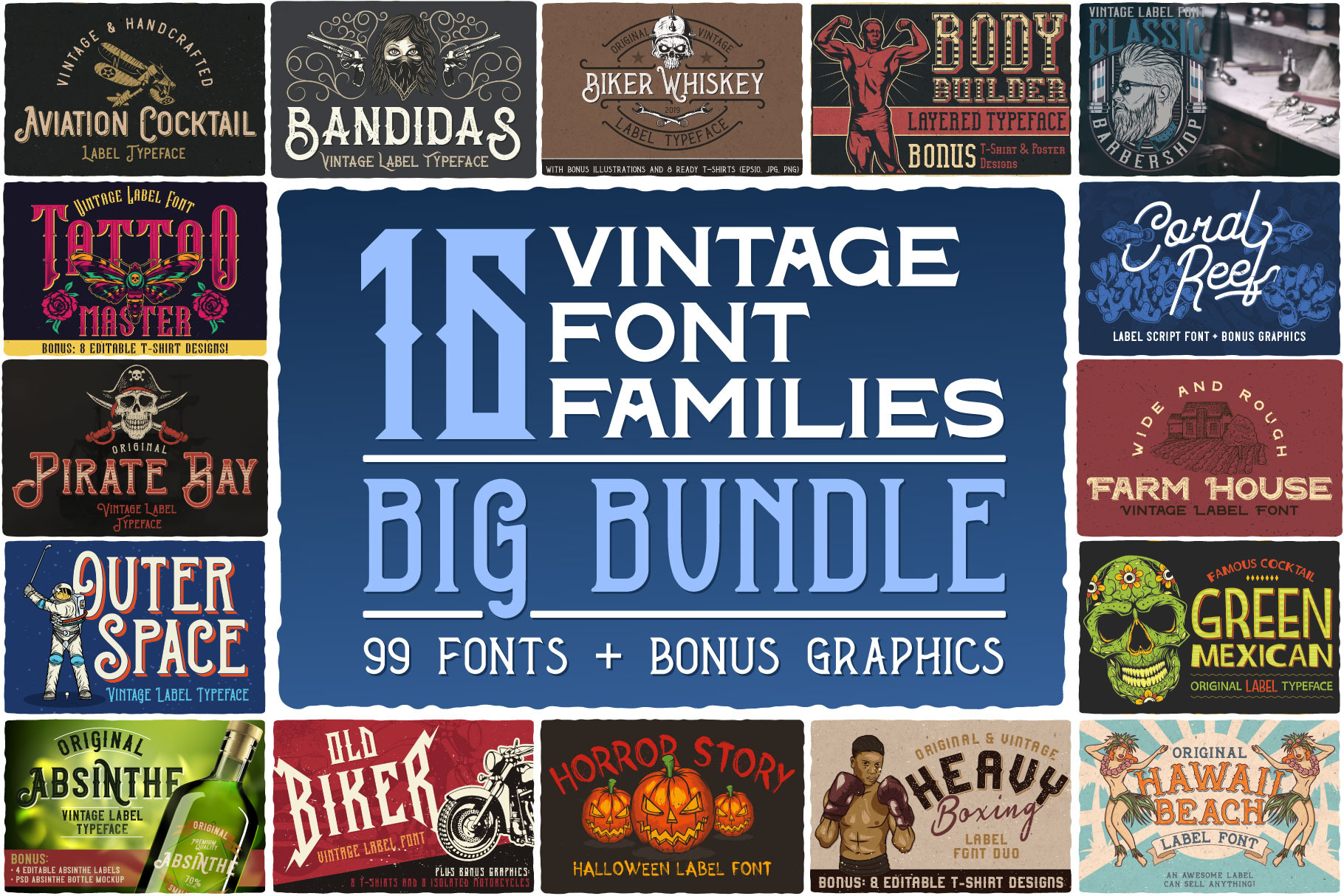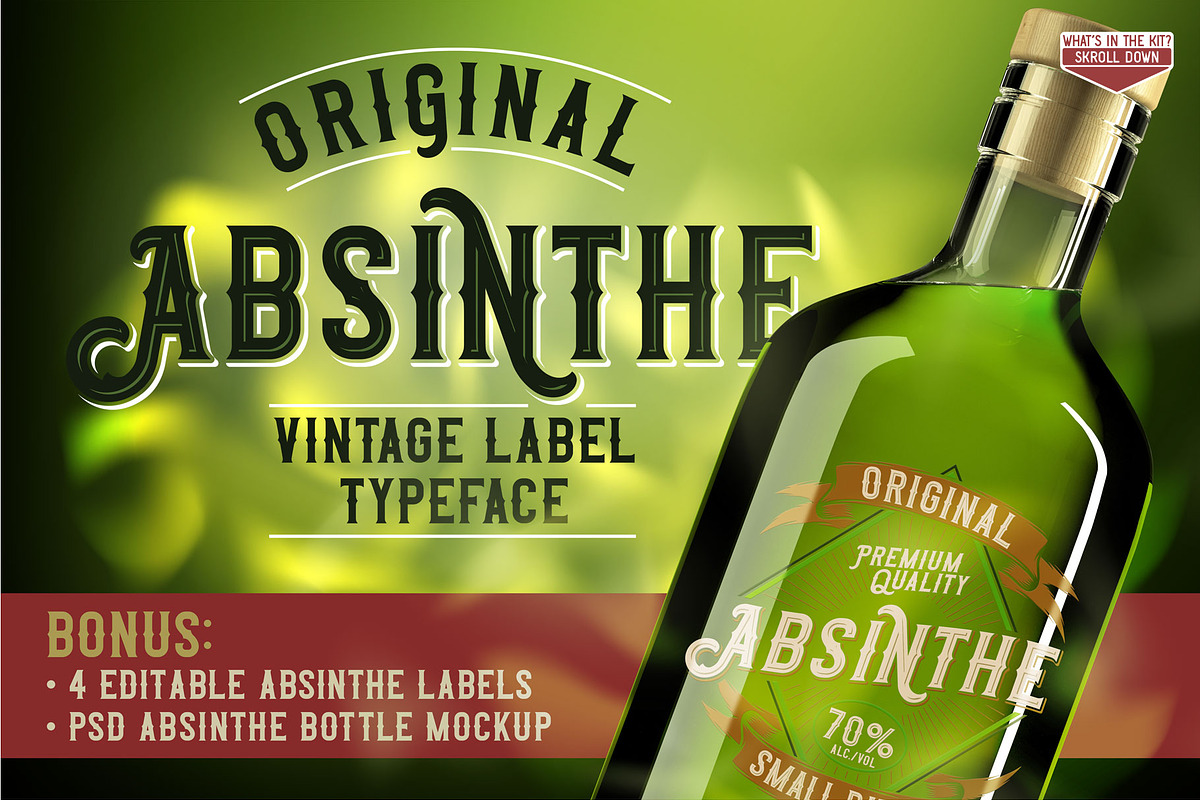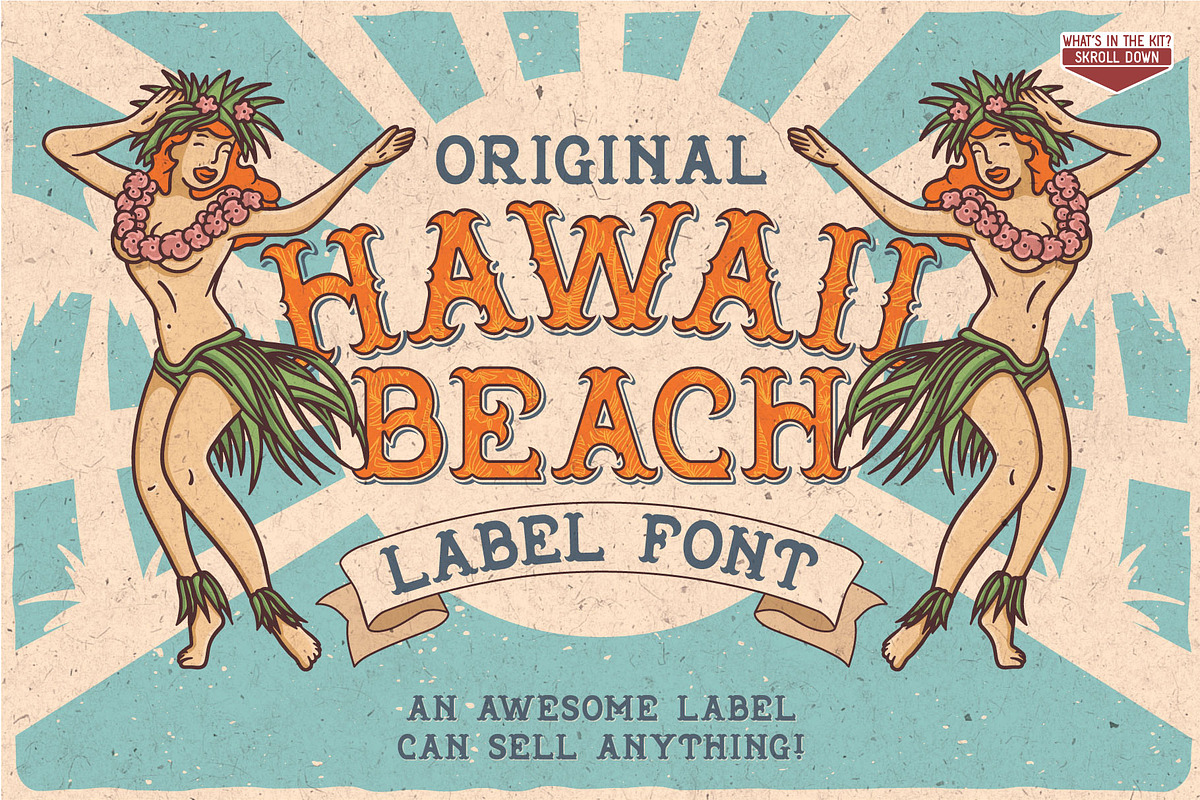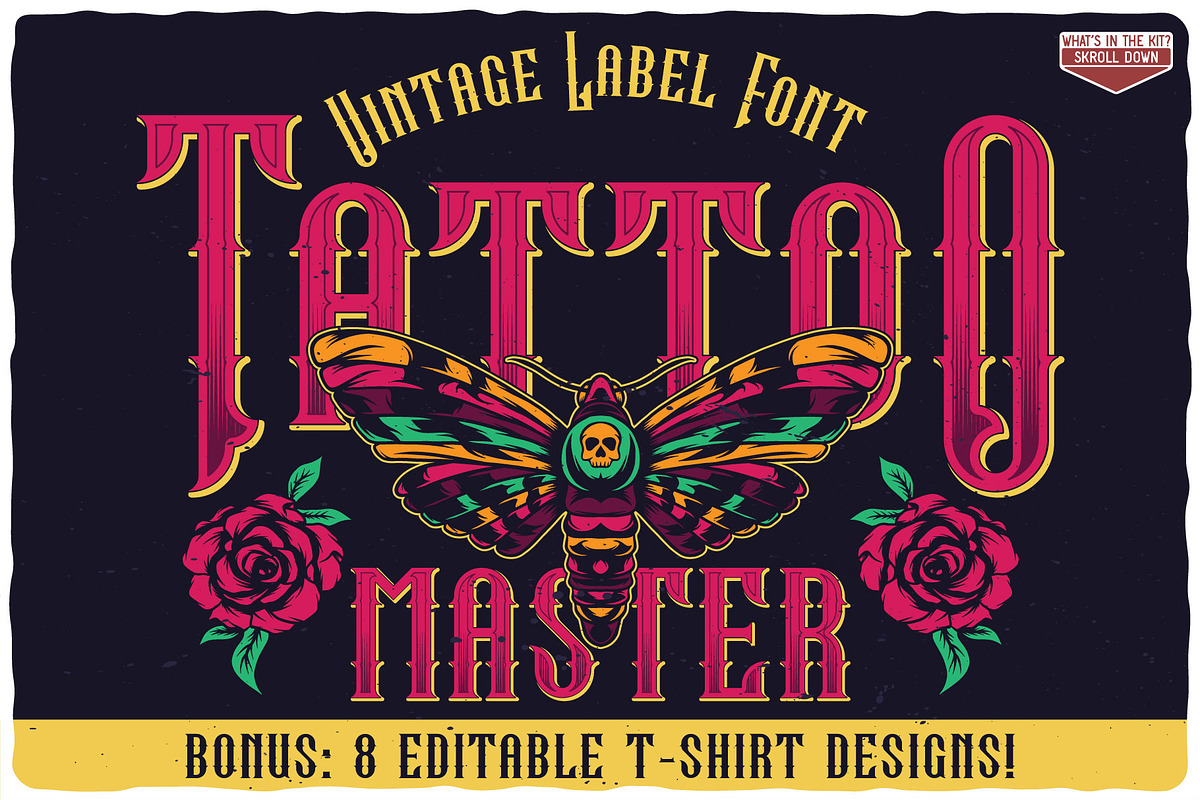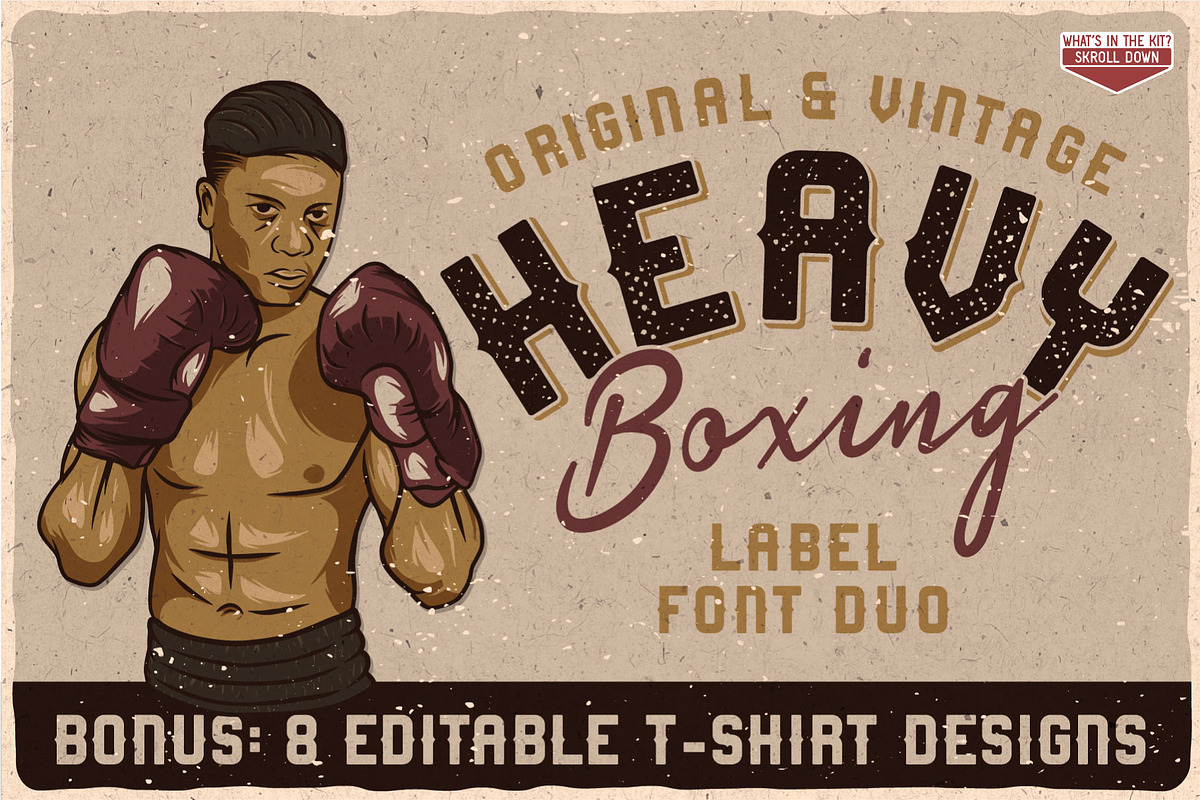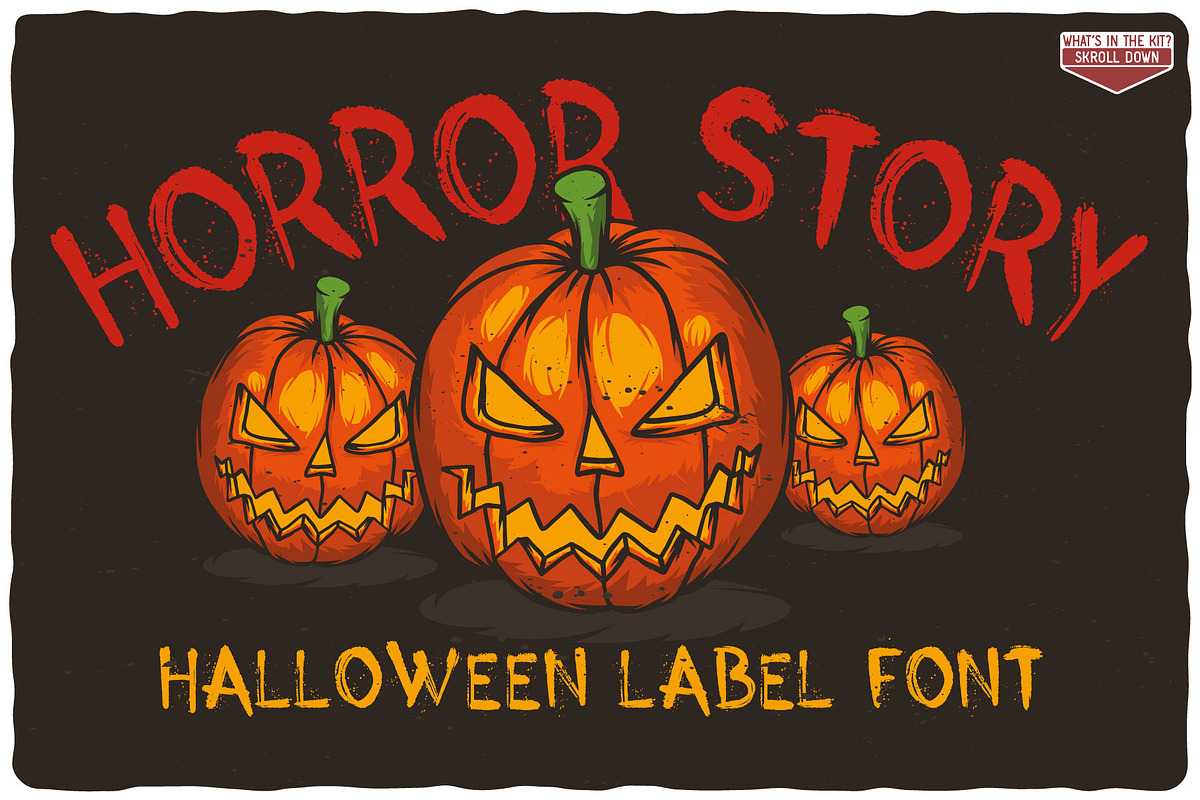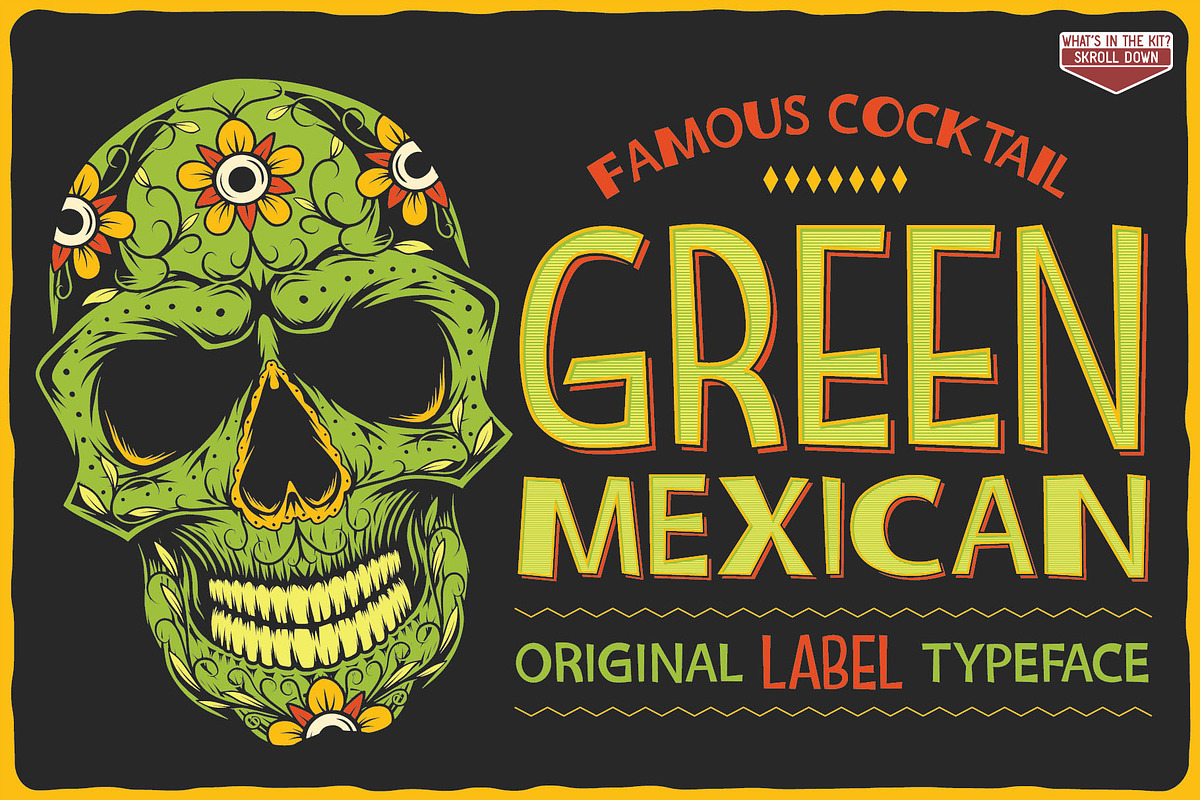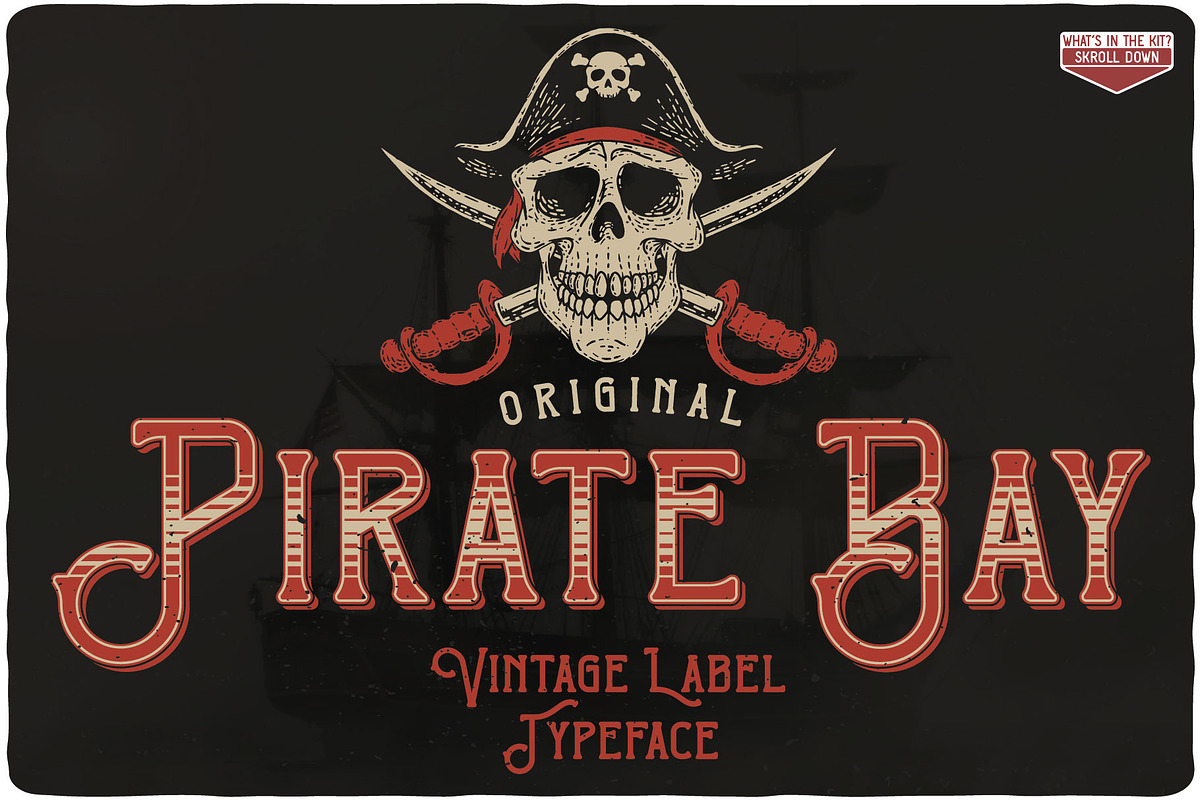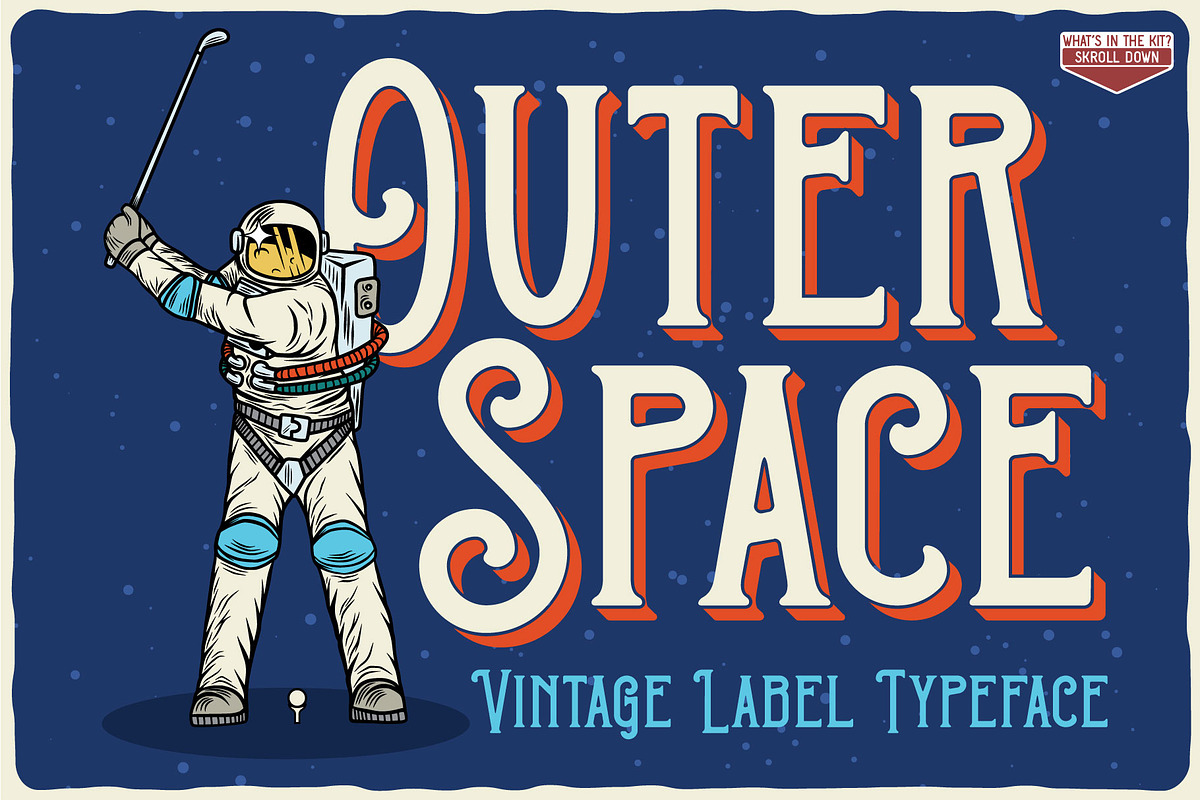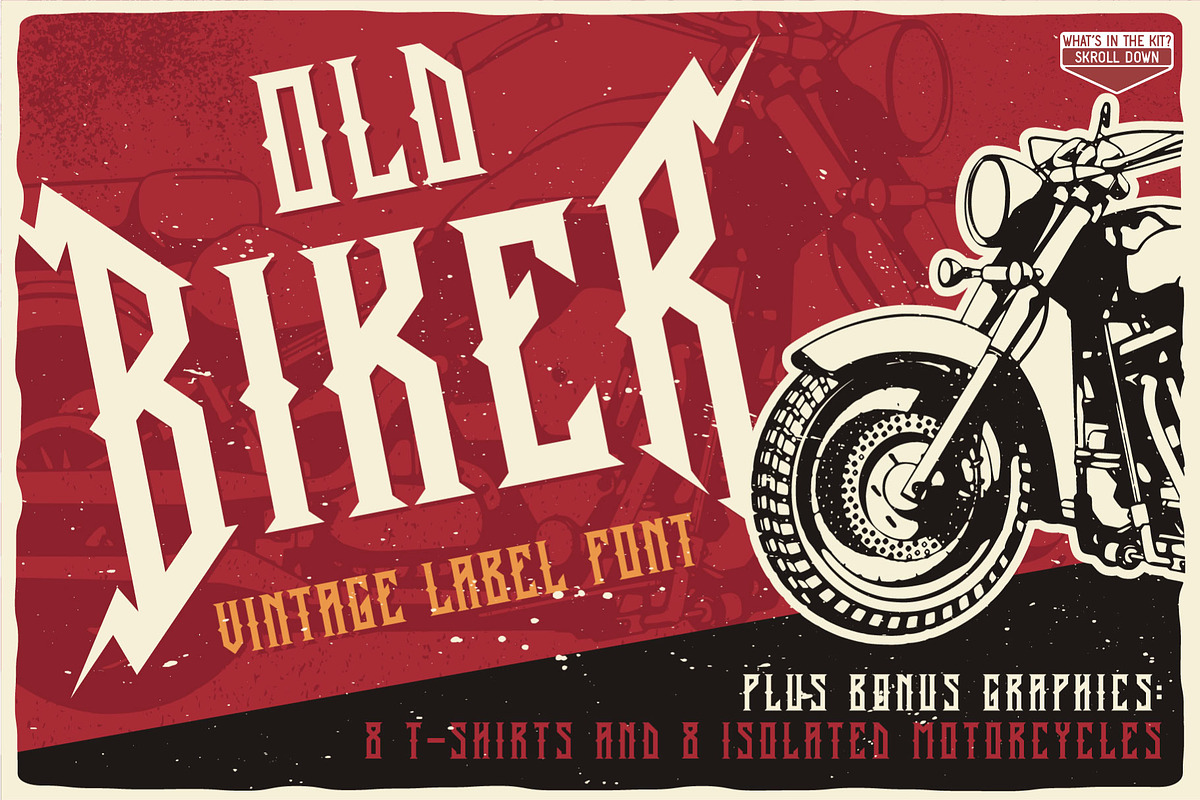
16 Font Families Bundle
- Old Biker https://creativemarket.com/OlegVoznyy/4423299-Old-Biker-Label-Font-Bonus
- Coral Reef https://creativemarket.com/OlegVoznyy/4389272-Coral-Reef-script-font
- Original Absinthe https://creativemarket.com/OlegVoznyy/4288190-Original-Absinthe-Layered-Font
- Tattoo Master https://creativemarket.com/OlegVoznyy/4247405-Tattoo-Master-label-font
- Horror Story https://creativemarket.com/OlegVoznyy/4178367-Horror-Story
- Heavy Boxing https://creativemarket.com/OlegVoznyy/4150424-Heavy-Boxing.-Font-Duo
- Hawaii Beach https://creativemarket.com/OlegVoznyy/4101621-Hawaii-Beach.-Font-T-shirts
- Green Mexican https://creativemarket.com/OlegVoznyy/3998479-Green-Mexican-Typeface
- Outer Space https://creativemarket.com/OlegVoznyy/3934675-Outer-Space-Font-BONUS
- Aviation Cocktail https://creativemarket.com/OlegVoznyy/3864265-Aviation-Cocktail-Font-BONUS
- Bodybuilder https://creativemarket.com/OlegVoznyy/3798638-Bodybuilder-Layered-Font
- Classic BarberShop https://creativemarket.com/OlegVoznyy/3700965-Classic-BarberShop
- Biker Whiskey https://creativemarket.com/OlegVoznyy/3586546-Biker-Whiskey
- Bandidas https://creativemarket.com/OlegVoznyy/3471689-Bandidas-Typeface
- Pirate Bay https://creativemarket.com/OlegVoznyy/3402875-Pirate-Bay-Typeface
- Farm House https://creativemarket.com/OlegVoznyy/3375051-Farm-House-Typeface
Unique fonts with lots of options for layered effects. Really like the style of the included graphic elements too.
This is a great deal for this font bundle. I really like layered fonts and all of these stack up accurately which can be a problem with layered fonts. There is a good variety of styles also. My only beef is the weight of some the fonts. For instance Bodybuilder would be an excellent font but it's so skinny or light in appearance that it contradicts it's name. It should be a bolder font imho. All in all a great deal and some of the included art is kinda cool also. I would recommend this vendor and will keep an eye out for future offerings.